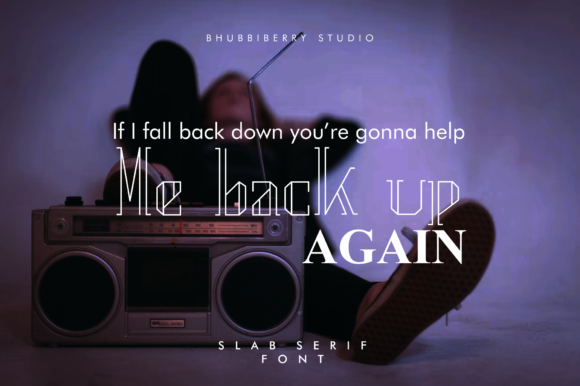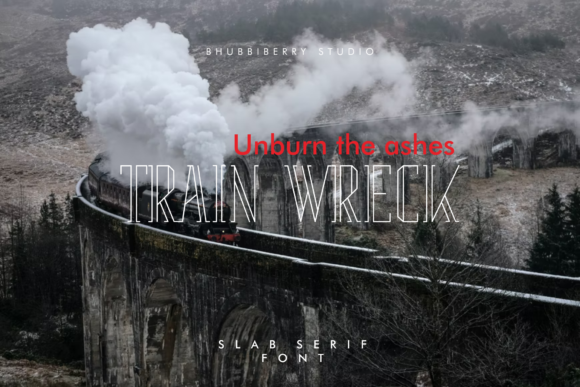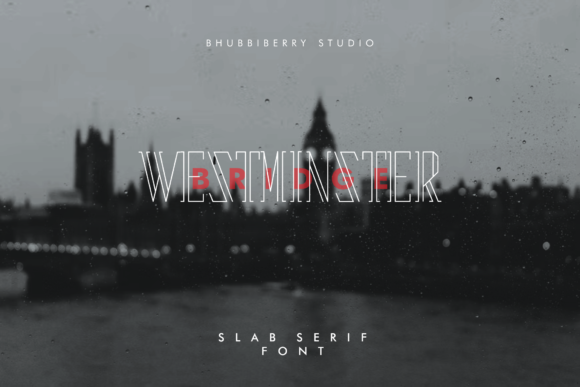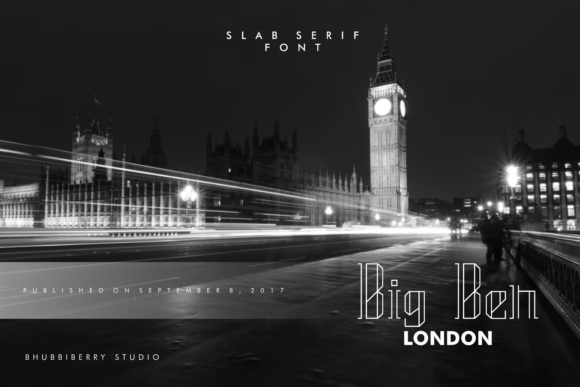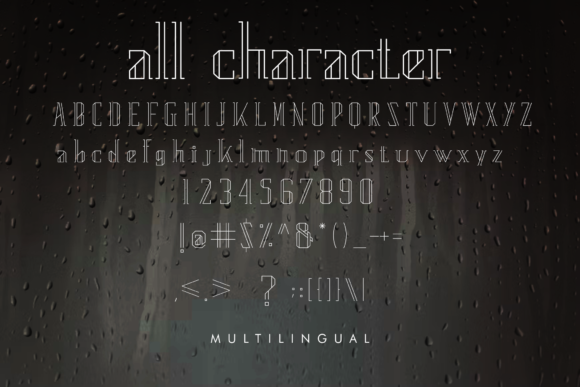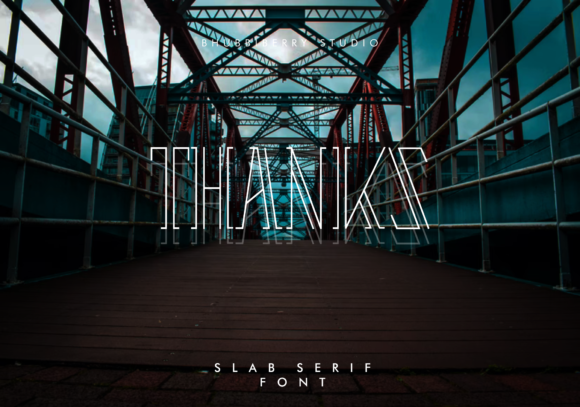
Cynical
Cynical: A Stunning Slab Serif Font
Cynical is a stunning slab serif font perfect for product packaging, branding projects, magazines, social media, or simply to express words above a background. Its elegant design makes it a versatile choice for various creative applications.
Key Features of Cynical
• Stunning Design: Offers an eye-catching and sophisticated look suitable for various applications.
• Slab Serif Structure: Features thick, rectangular serifs typical of slab serif fonts.
• Versatile Application: Ideal for both print and digital media projects.
• Impactful Presence: Designed to enhance the visual appeal of any creation.
Ideal Uses for Cynical
Cynical’s unique characteristics make it particularly well-suited for:
When incorporating Cynical into your designs, consider these tips:
• Use for headlines or short blocks of text to showcase its stunning style.
• Utilize its versatility across various creative projects to enhance visual appeal.
Cynical is an excellent choice for designers looking to add a stunning slab serif font to their typographic toolkit. Its ability to enhance various design projects makes it stand out in the world of typography. Whether you’re working on product packaging, creating layouts for magazines, or developing content that requires a touch of elegance, Cynical offers the perfect blend of style and functionality.
Furthermore, Cynical’s unique design allows it to shine in various contexts. From vintage-inspired designs with a modern twist to more contemporary layouts that need a touch of uniqueness, this font can elevate your projects. Its striking yet functional style works particularly well in designs that require a thoughtful and engaging mood.
In conclusion, Cynical is a font that truly captures the essence of creativity and impact in typography. Its ability to work well in both minimalist projects and more elaborate layouts showcases its flexibility. For those looking to add a touch of unique charm to their work, Cynical can even enhance themed creations with its distinctive style. It’s the perfect choice for designers seeking to make a strong, stylish impact across a wide range of creative projects.